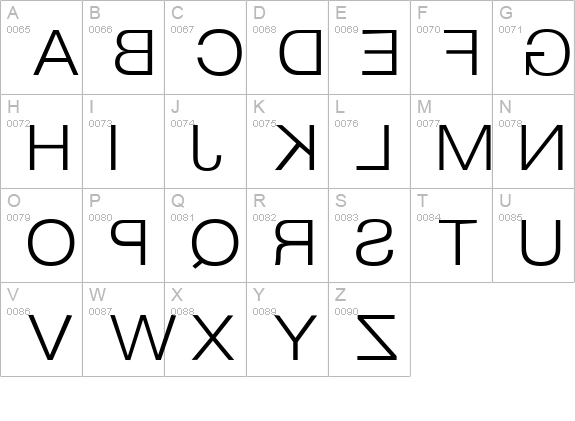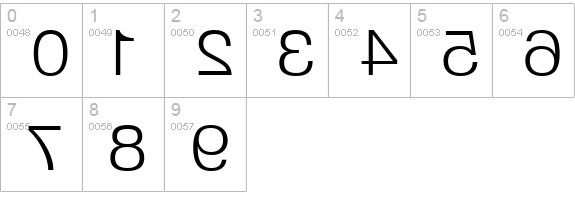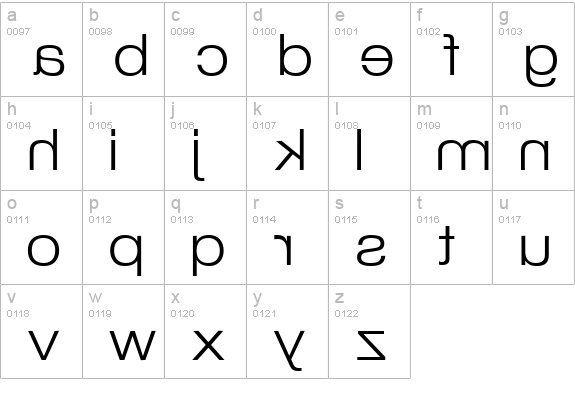
Strait Kcab Font Details
Strait Kcab font is a unique and stylish typeface that combines modern aesthetics with a touch of playfulness. Its sleek lines and quirky design make it perfect for a wide range of creative projects, from branding to social media graphics. The font features a clean and legible look, making it versatile for various design purposes. What sets Strait Kcab font apart is not just its distinctive design, but also the fact that it is available for free! Yes, you read that right - this amazing font can be downloaded at no cost from FontsMarket.com. Whether you're a professional designer looking to add a fresh font to your collection or a hobbyist seeking a fun typeface for personal projects, Strait Kcab font is the perfect choice. Download it today and let your creativity soar with this fantastic free font!